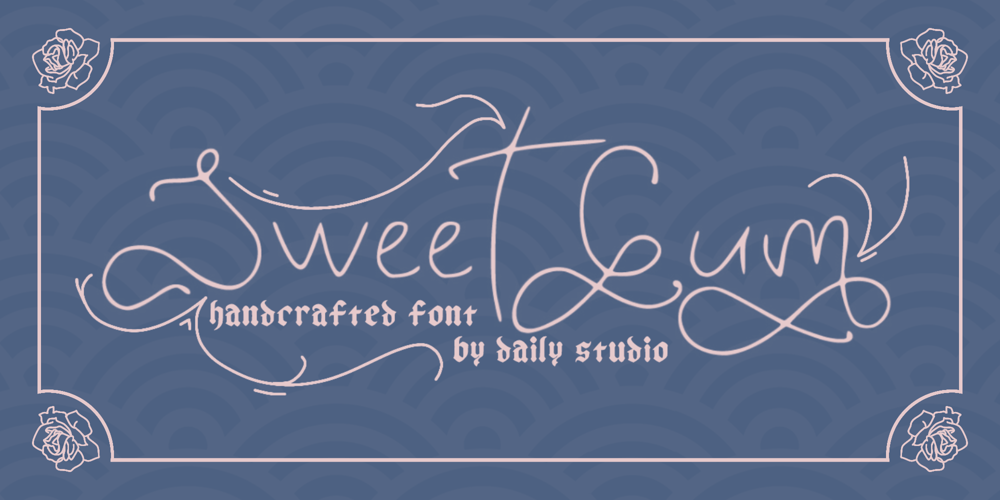
Sweetgum Font Family was designed by Zaizafun Hanifah and published by Daily Studio. Sweetgum contains 1 styles and family package options. Sweetgum is an elegant and modern curved font with beautiful alternates. It is easy to use and suitable for headlines, invitations, quotes, business card, posters, etc. You can have fun combining each letter with the alternates. Let yourself explore and use it to create something wonderful. This font includes full uppercase, lowercase, punctuation, and standard multilingual support. With 289 glyphs and in OTF file.